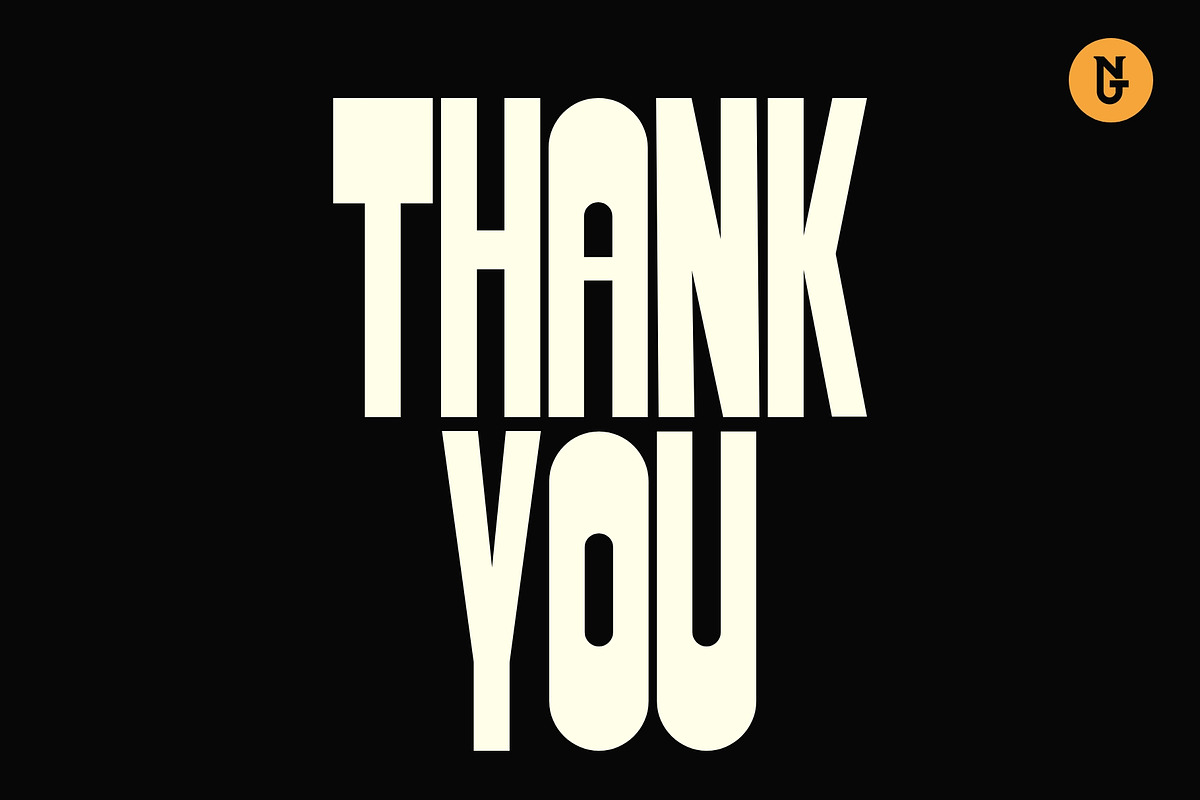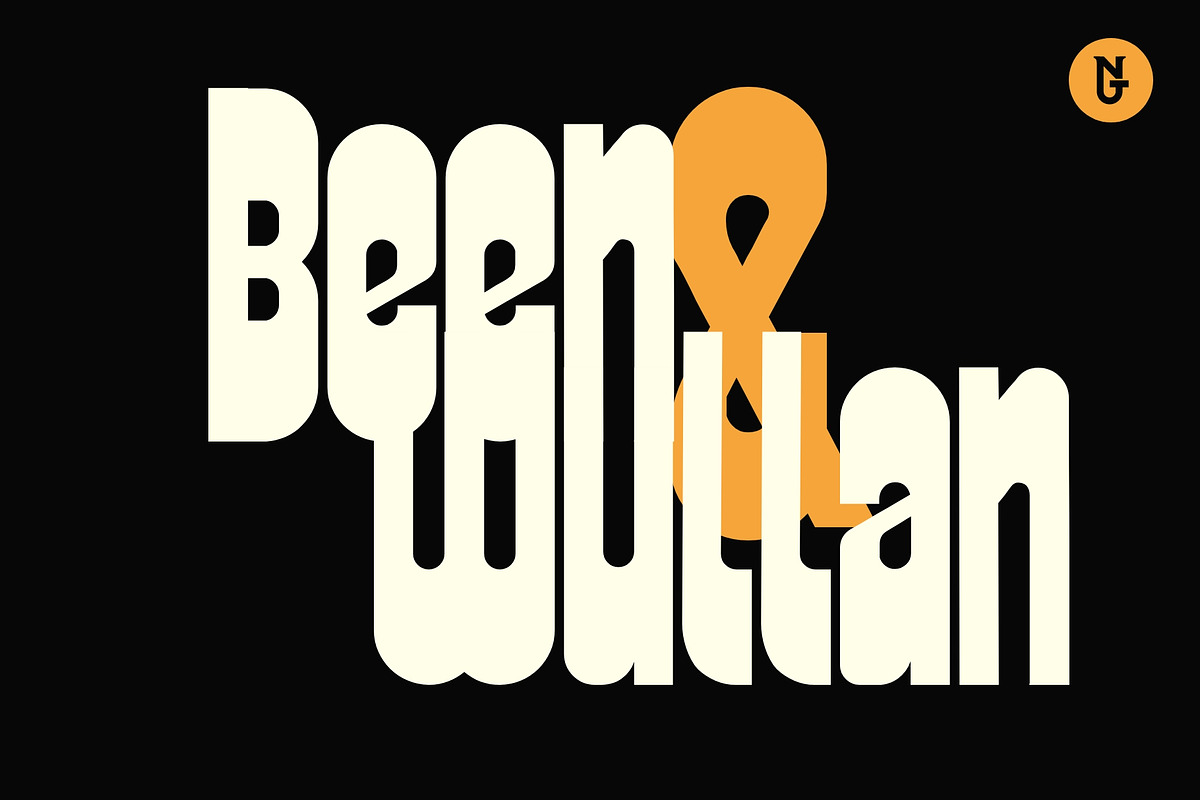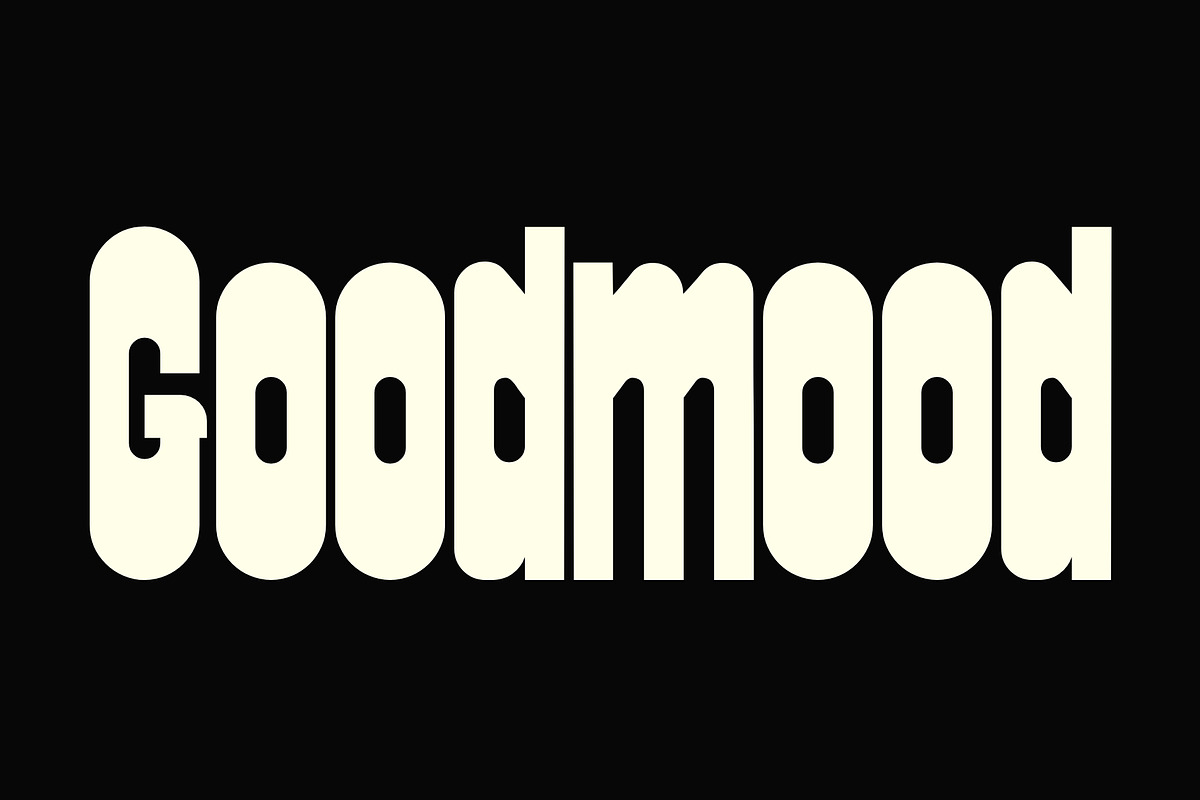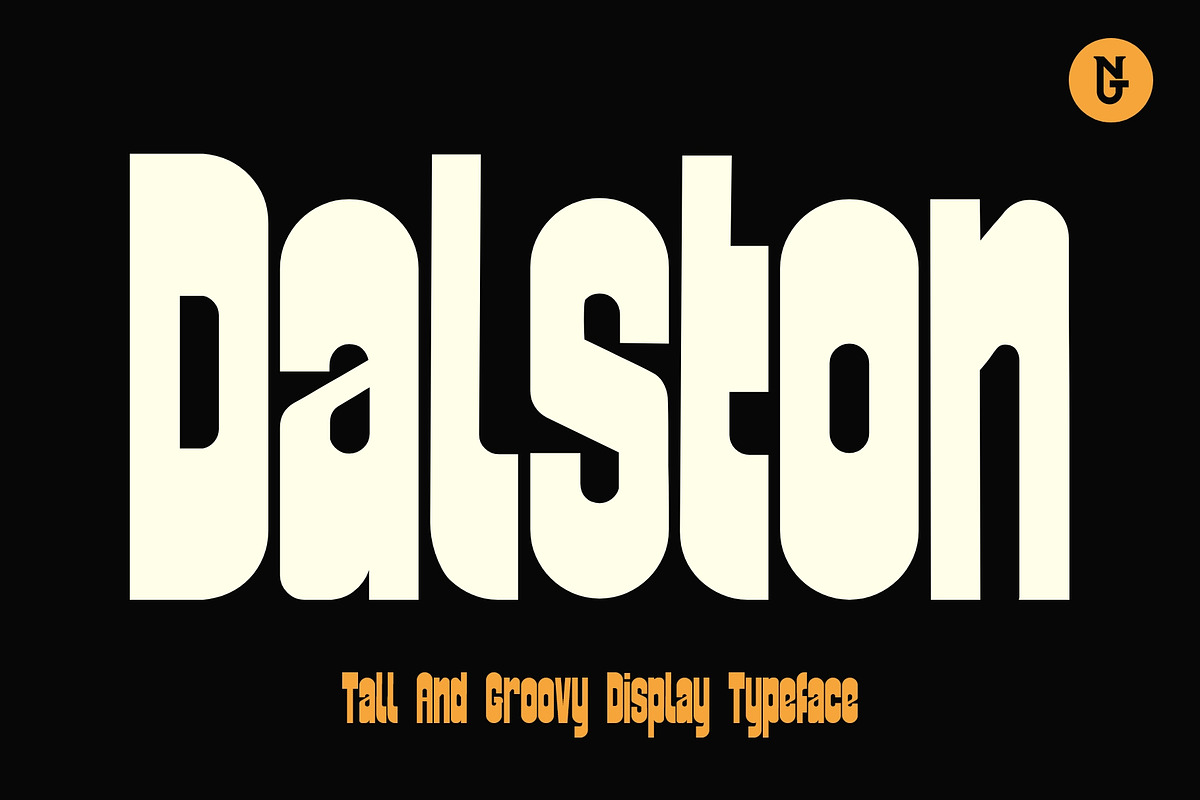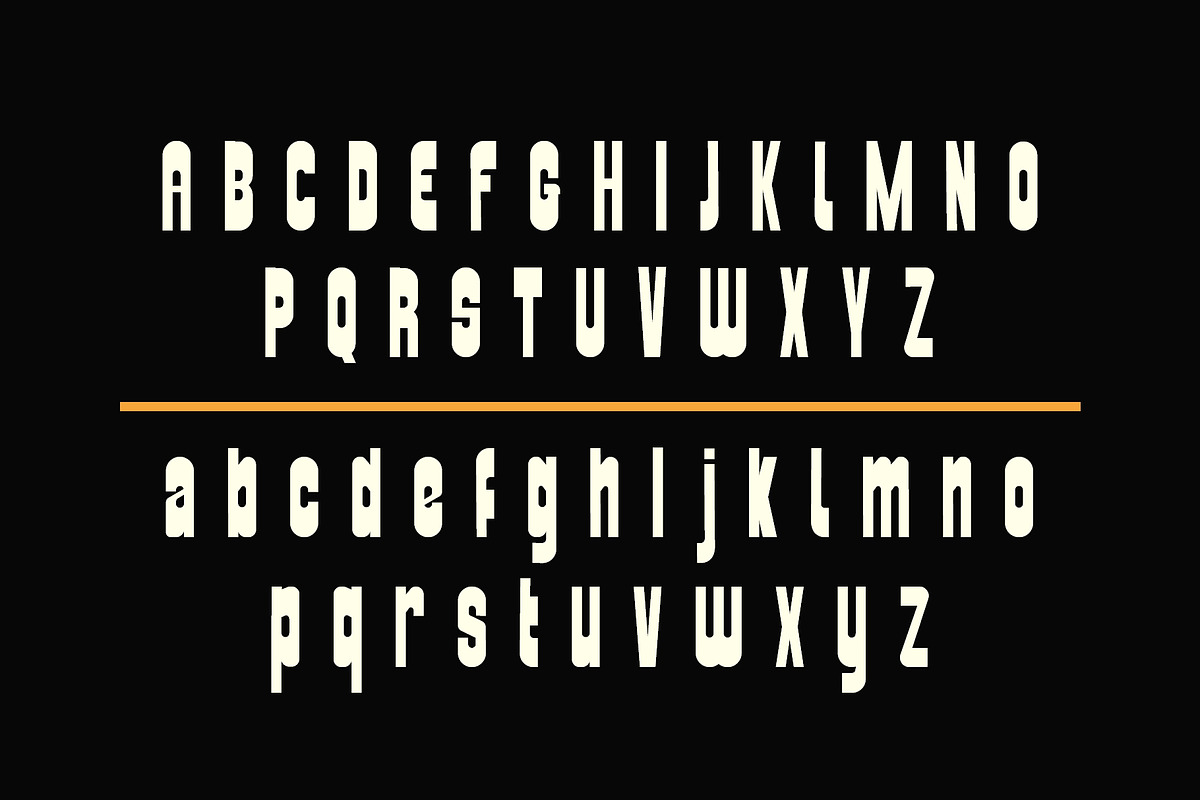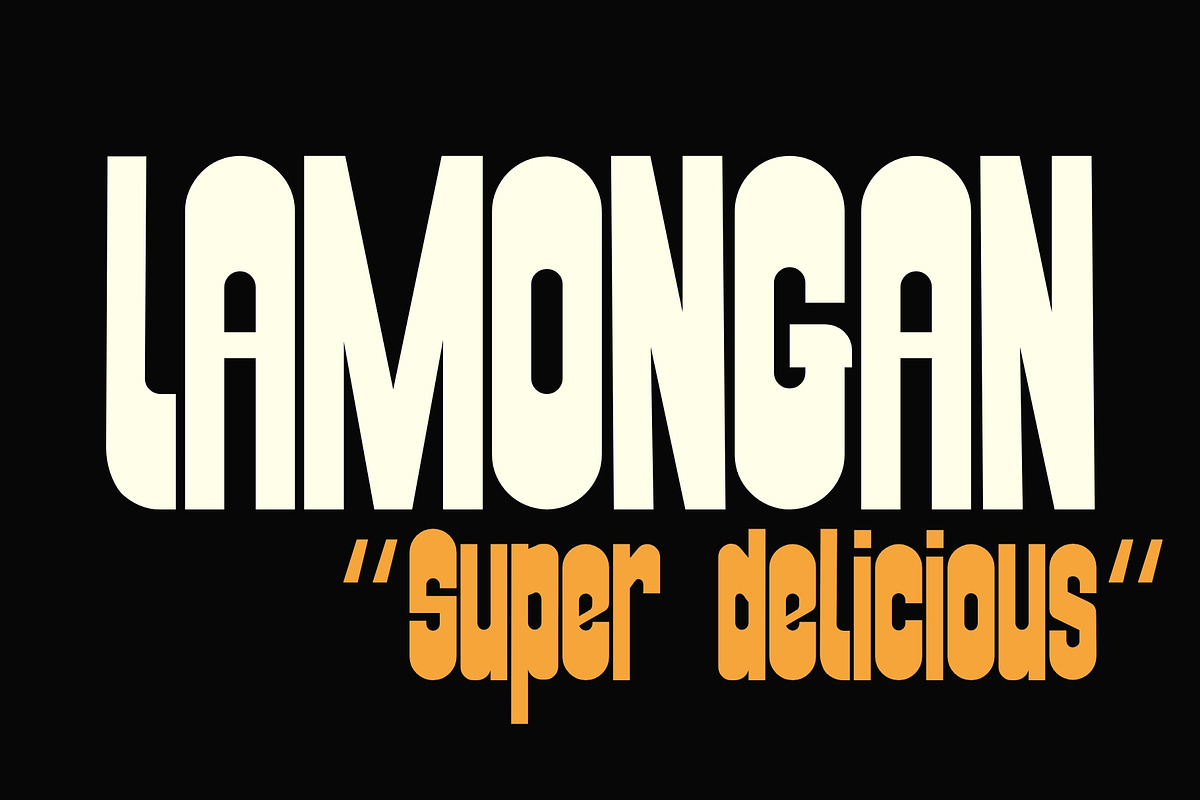
Dalston
Introducing the Dalston Display Font, its tall and groovy look makes your designs unique and bold. There are 2 types of fonts, regular and italic, both perfect for your design projects.